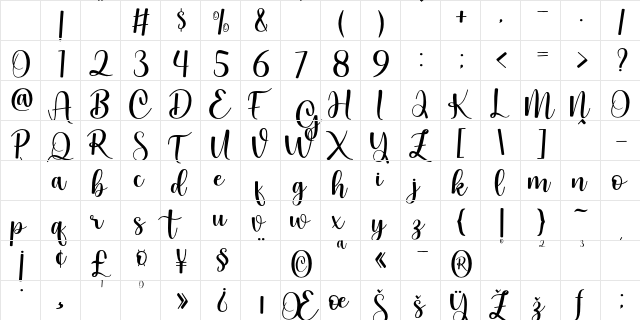
Complete Holiday Sweet Lovely Regular glyph index. Displaying only characters natively supported by Holiday Sweet Lovely Regular font.
Holiday Sweet Lovely is a composed and adaptable typeface that performs quietly and consistently across a wide range of design contexts.